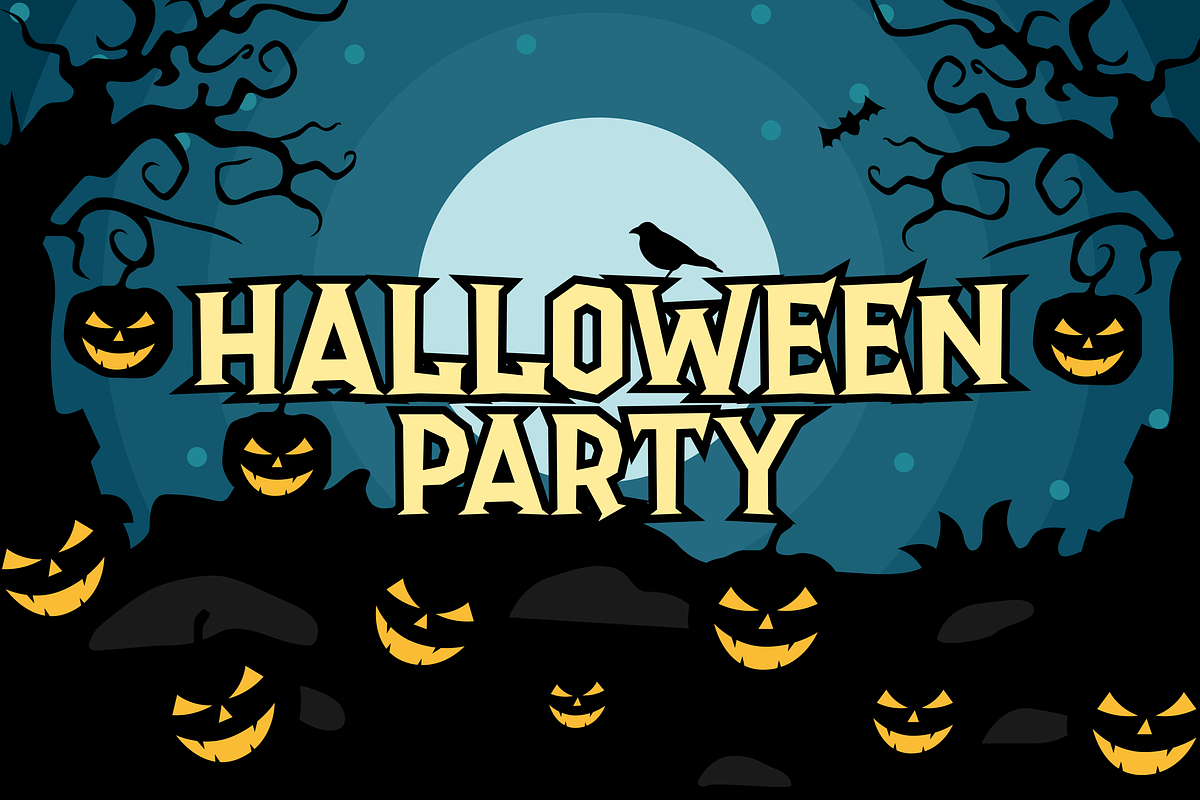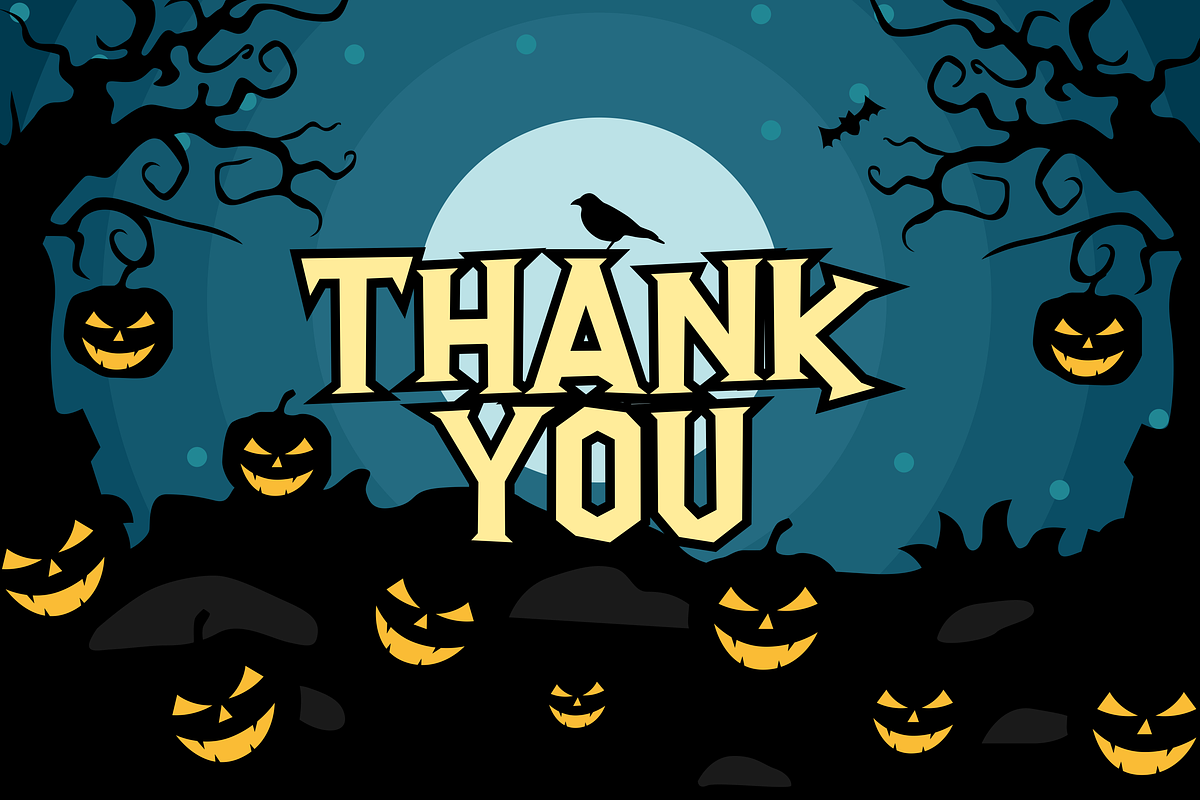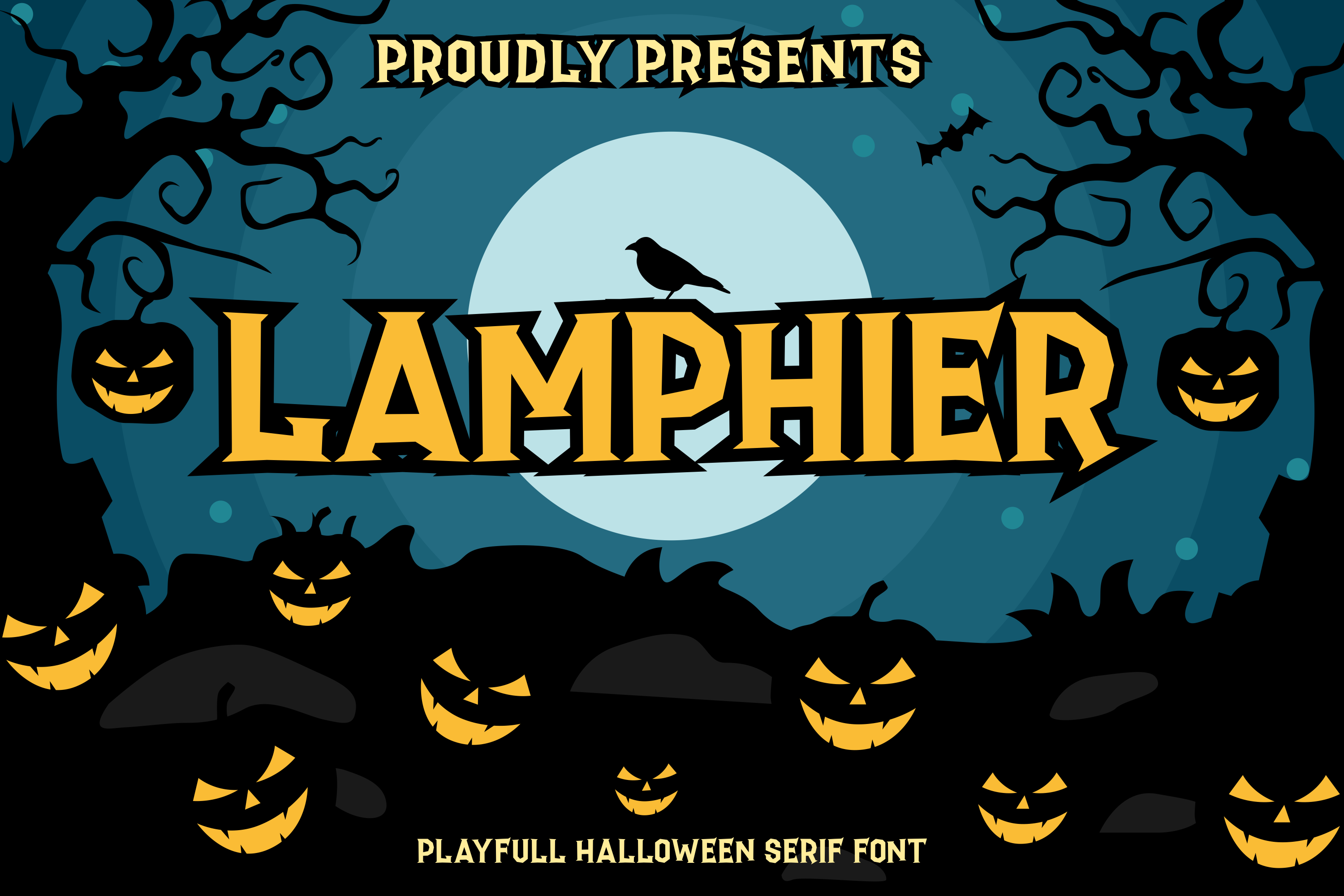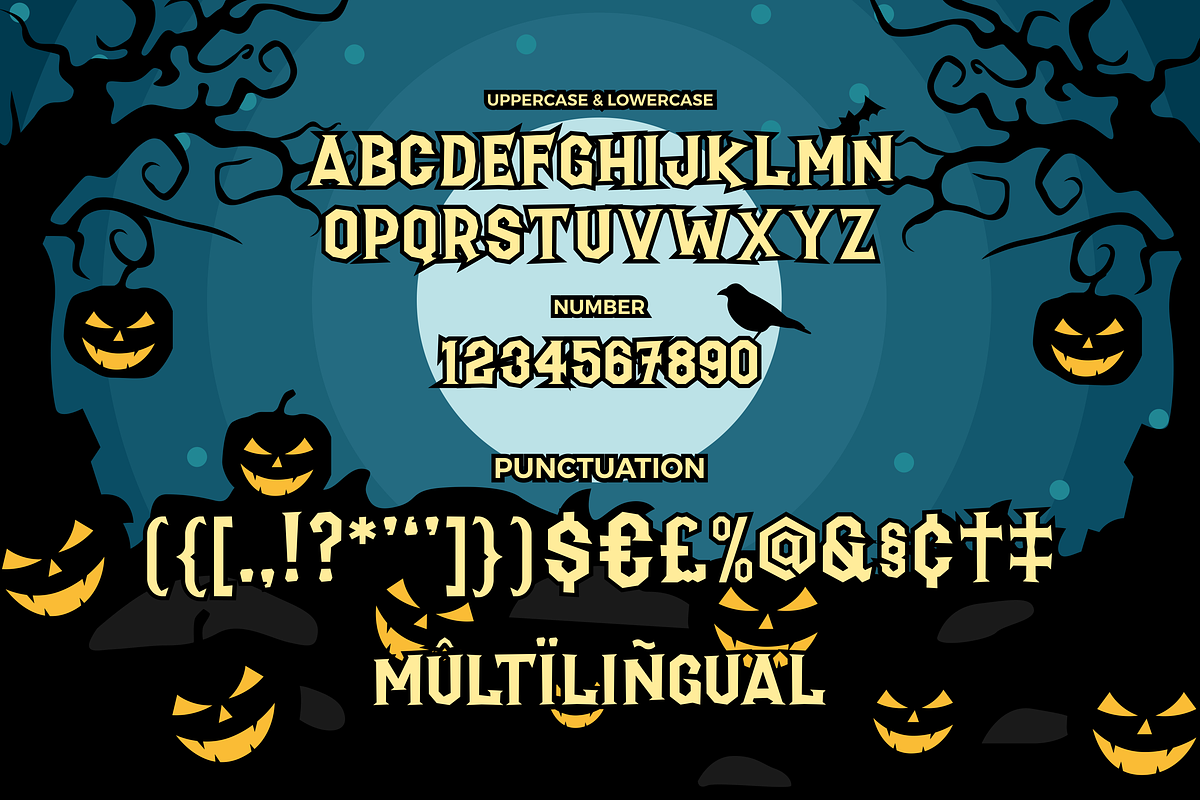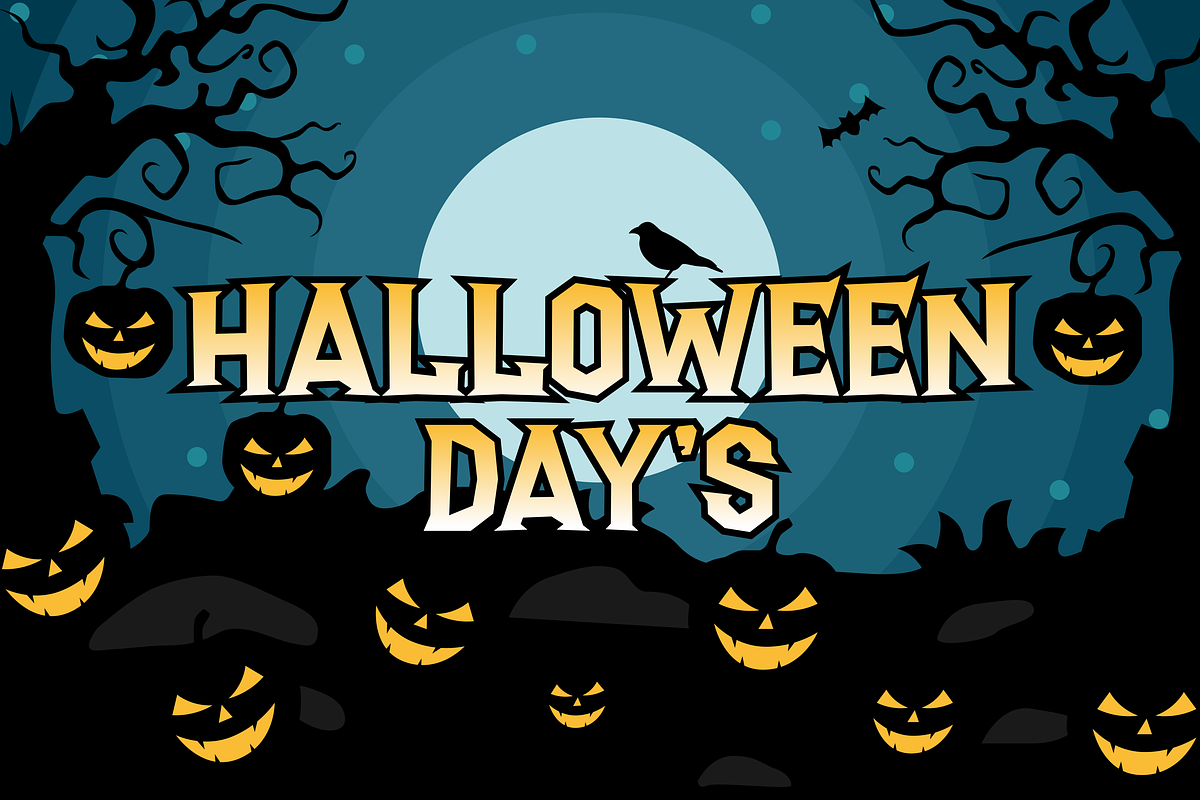
Lamphier Horror Display Font
Introducing of our new product the name is Lampiher a Horror Font, Lampiher inspired by Bouncy horror style with a fun theme very good for horror, scary, spooky and halloween theme design.